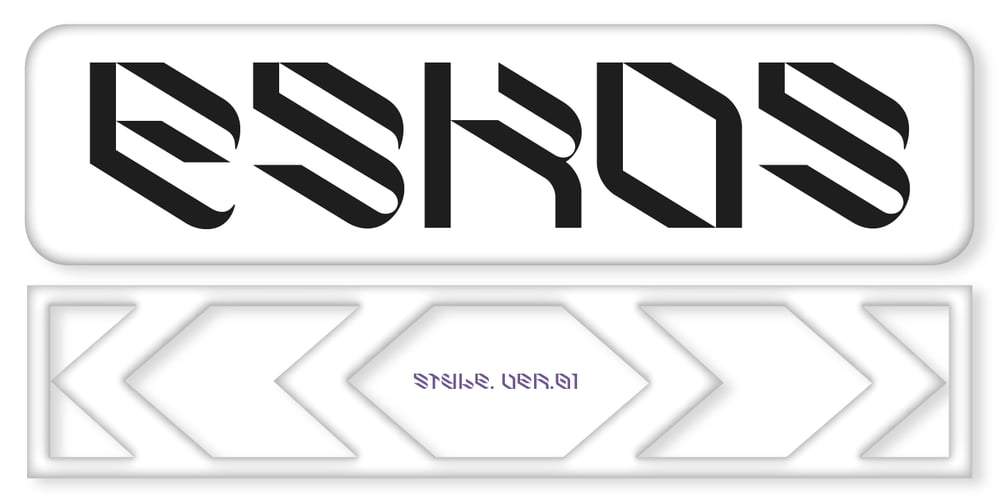
Eskos
Eskos font
Eskos Font Family was designed by Victor Pesotsky and published by Pesotsky Victor. Eskos contains 1 styles and family package options. Eskos is designed for headings. It is deliberately diagonal and gives a sharp, oblique texture in the text set. It has rough irrational knots and oblique strokes. Eskos supportsBasic Latin, Cyrillic and more than 100 languages all together.The font was designed by Viktor Pesotsky.